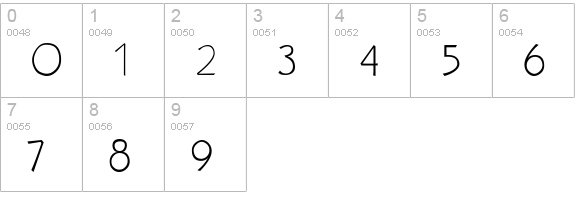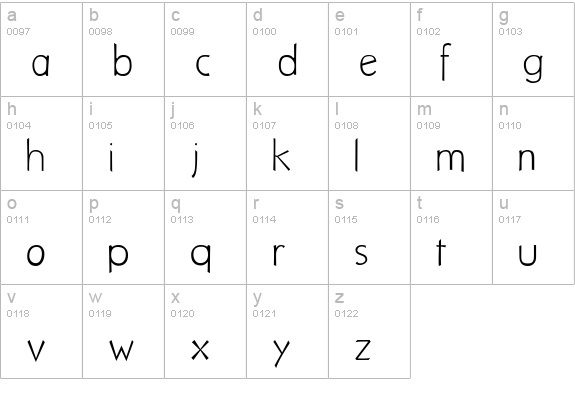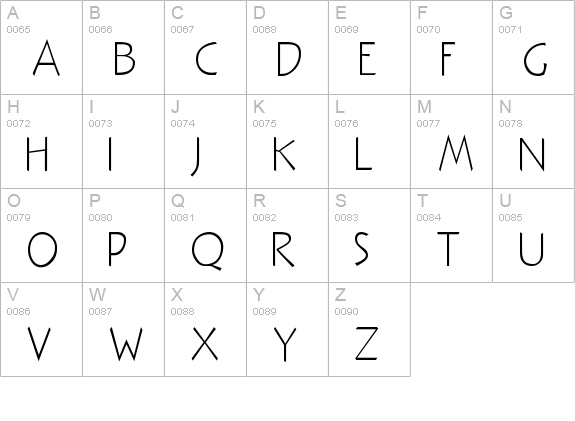
NuevoLitho Light Font Details
NuevoLitho Light is a refined, elegant variant in the NuevoLitho typeface family \xE2\x80\x94 well suited to elegant body text, refined sub-headings, and luxury branding.
NuevoLitho Light is a modern and elegant font that exudes sophistication and style. With its clean lines and sleek design, this typeface is perfect for adding a touch of refinement to any project. The light weight of the font gives it a delicate and airy feel, making it ideal for use in headings, quotes, and other display text. What sets NuevoLitho Light apart is that it is not only beautiful, but also free to download. You can easily access this stunning font at FontsMarket.com, where you can add it to your collection without any cost. Whether you're a designer looking to elevate your work or someone simply looking for a stylish font for personal use, NuevoLitho Light is a fantastic choice that won't break the bank. Download it today and see how it can enhance your designs!